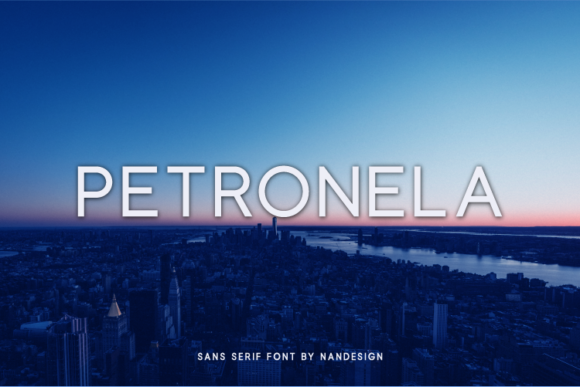
Petronela Font
Introducing Petronela Font, a stunning sans serif masterpiece created by Nan Design, the master of typographic artistry. This font is not just a collection of letters; it's an invitation to embark on a journey of creativity, where words take on a new life and designs come alive with unmatched elegance.
Petronela Font is more than just a font; it's a gateway to a world of limitless possibilities. Whether you're crafting a modern app, designing a sleek website, or creating marketing materials that demand attention, Petronela Font is your trusted companion. Its clean lines and smooth curves bring a touch of sophistication to any project, transforming ordinary text into captivating statements.
With Petronela Font by your side, you'll discover a font that's as versatile as it is beautiful. Its carefully crafted characters dance gracefully across the screen, adapting effortlessly to a wide range of design styles. From minimalist aesthetics to bold and vibrant expressions, Petronela Font seamlessly blends in, enhancing your creations with a timeless charm.
Unlock the true potential of your designs with Petronela Font. Let your imagination soar as you explore a world where typography and artistry converge. Experience the joy of creating with a font that empowers you to express your ideas with unparalleled clarity and impact.
Petronela Font isn't just a font; it's an investment in your creative arsenal. A font that will elevate your projects to new heights, leaving a lasting impression on your audience. Embrace the beauty of Petronela Font and watch your designs transform into masterpieces that capture hearts and minds.